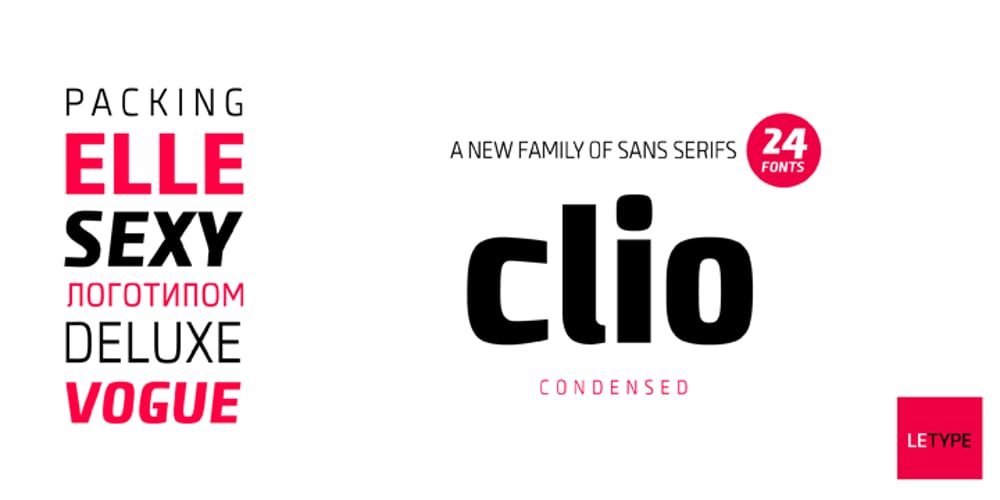
Clio Condensed
Clio Condensed font
Clio Condensed Font Family was designed by published by LeType. Clio Condensed contains 24 styles and family package options. Clio, Clio XS and Clio Condensed is a big family of 72 fonts. They were designed by Gabriel de Souza in 2012. They are simple and stylish and they have the ideal appearance to your work. Furthermore, features such as italics, obliques, great language support and flexibility. They can be applied in many different forms but their primary use is indicated to display use and luxurious trade mark creation and also available for Clio Icons.